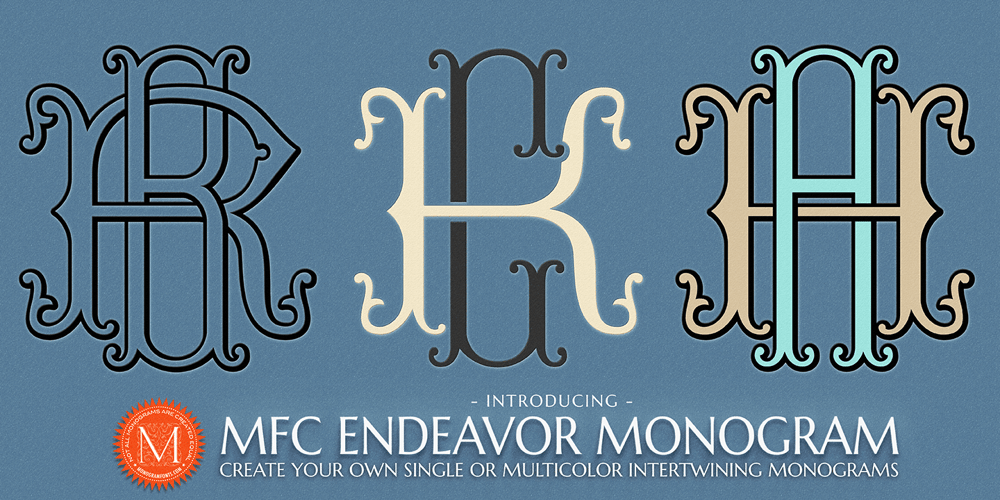
MFC Endeavor Monogram Font Family was designed by Jim Lyles, Brian J. Bonislawsky and published by Monogram Fonts Co.. MFC Endeavor Monogram contains 7 styles and family package options. The inspiration source for MFC Endeavor Monogram is an alphabet set from the book, Monograms and Alphabets for Combination by Dollfus Mieg & Cie, first published in the 1890s. What began as 26 referenced outline/shadowed letters became an over 730 character font in order to create its unique interwoven monogram effect! Expanding on the theme even more, MFC Endeavor Monogram also includes a series of Chromatic Layering fonts to create even more customization options. MFC Endeavor Monogram can create one, two, or three letter monograms as well as a unique two letter intertwined monogram style – made by simply typing a lowercase immediately followed by a Capital (using OpenType Ligatures). Classic decorative letterforms combine to make elegant monograms, and you can also choose to type in all capitals or all lowercase for simple title and headlines as well. (Note that due to the manner in which combination monograms are formed, some letters like the “I” have script-like forms to avoid being hidden in overlaps). MFC Endeavor Monogram is the original Outline/Shadowed style. MFC Endeavor Monogram Solid is a version with the original outline filled in. MFC Endeavor Monogram One is the Capital letterforms only in both standard and ligature glyphs. MFC Endeavor Monogram Two is the Lowercase letterforms only in both standard and ligature glyphs. MFC Endeavor Monogram Stencil contains the inner fill of the original Outline/Shadowed style, and while the standard Capitals & Lowercase do not appear as stencil in style, the ligatures are. See Guidebook for explanation of Chromatic Layering possibilities. A PDF guidebook for MFC Endeavor Monogram is available via the Gallery tab.